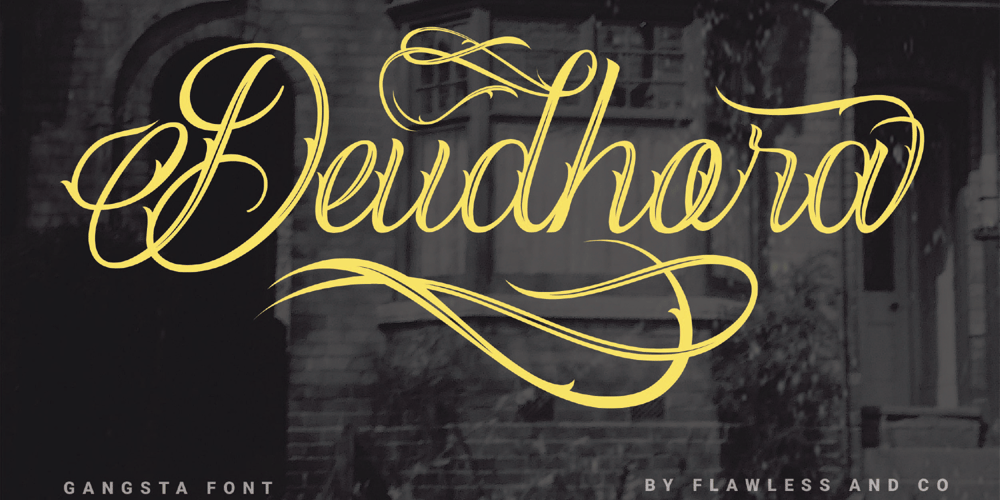
Deudhora Font Family was designed by Achmad Yani and published by Flawlessandco. Deudhora contains 1 styles and family package options. Deudhora is a tatto script font. This font type gives a feel of gangsta style.An Original typeface that suitable for any graphic designs such as branding materials, t-shirt, print, logo, poster, photography, quotes .etcThis font support for some multilingual. Chicano Font Style that contains uppercase A-Z and lowercase a-z, alternate character, numbers 0-9, and some punctuation.If you need help, just write me! Thanks so much for checking out my shop!